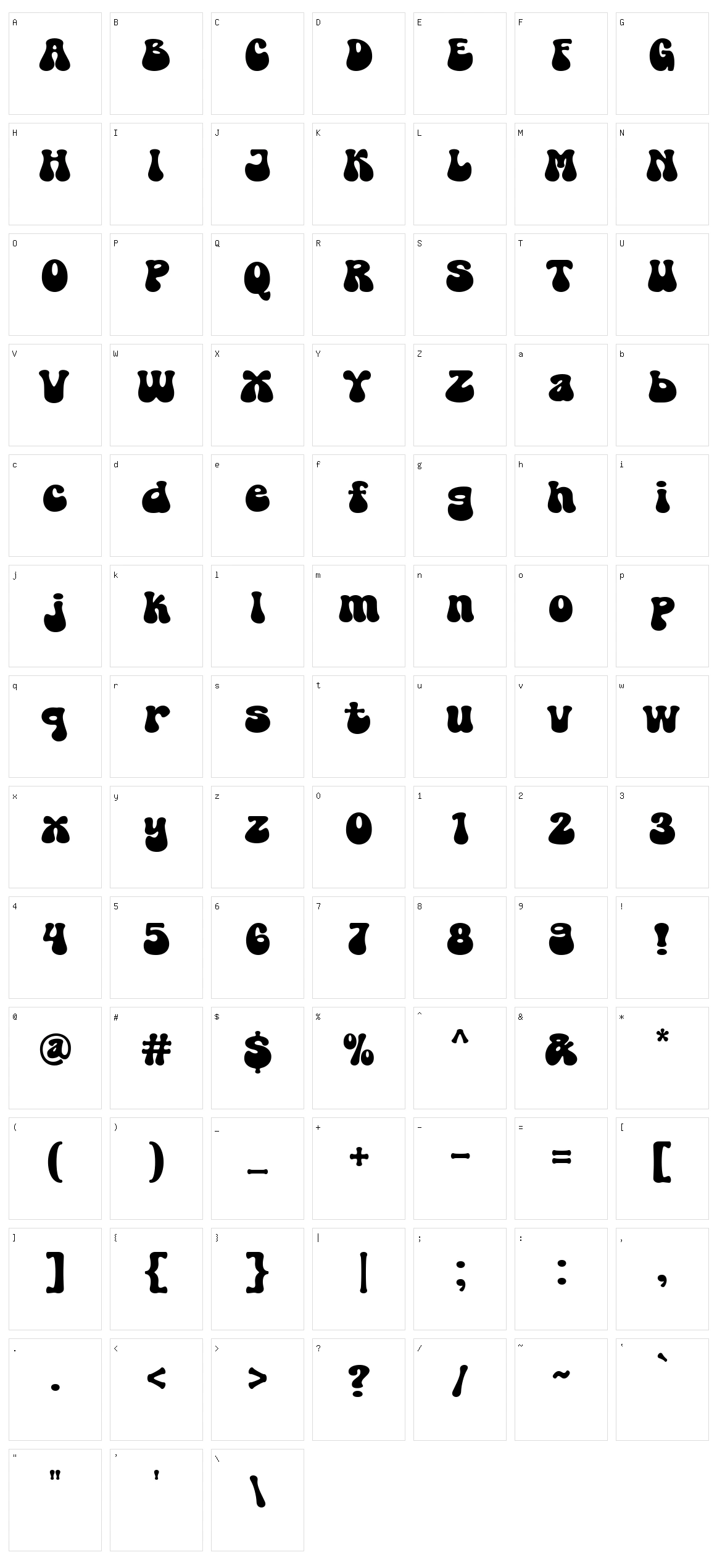
The free font Super Magic is carefully designed by fsuarez913, showcasing a thoughtful balance of creativity and usability and falls under the Groovy font style. When you download the ZIP file, it contains only 74.84 KB of font files, making it lightweight and quick to download. Please review the license details below to understand permitted usage and distribution rights. If license information is not available, we recommend using this font for personal projects only or contacting the author directly for commercial usage permissions.